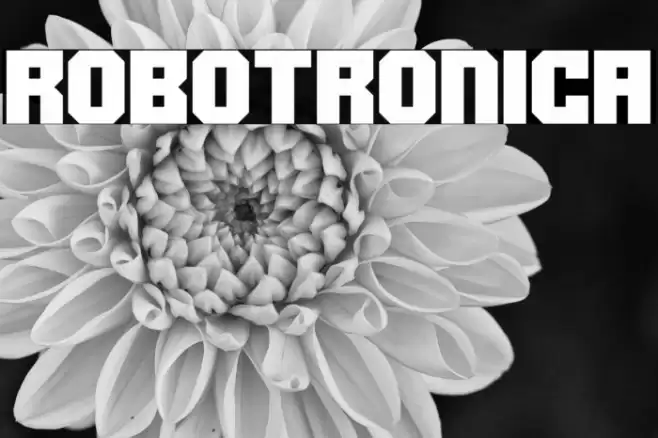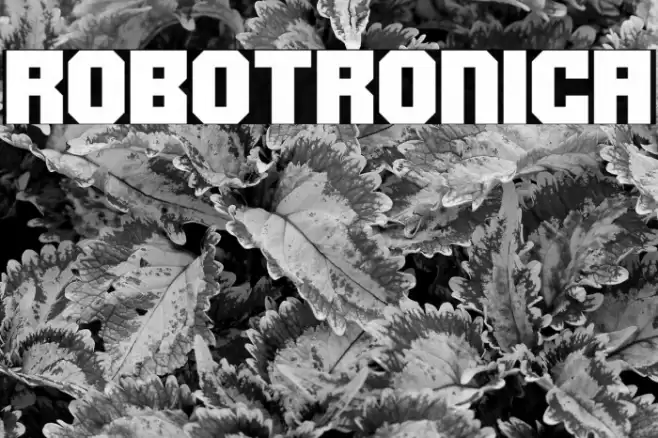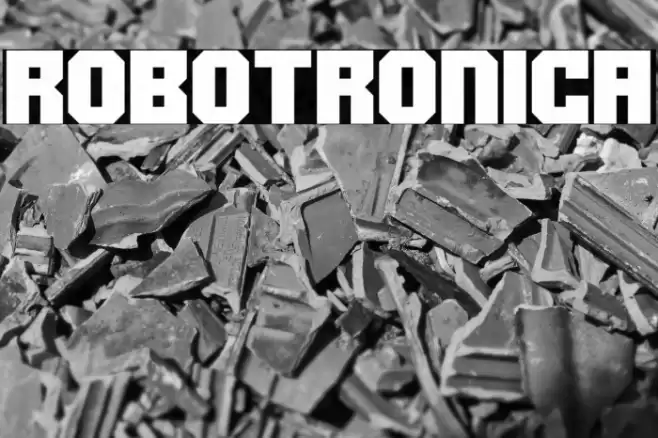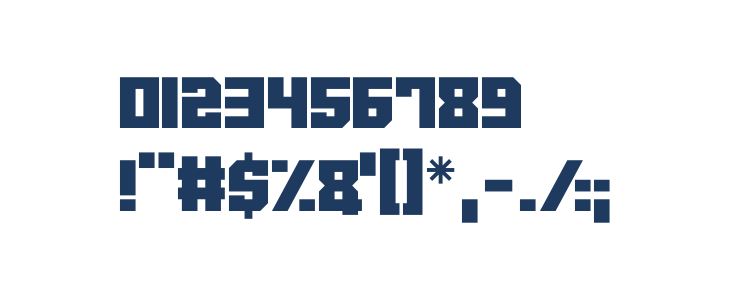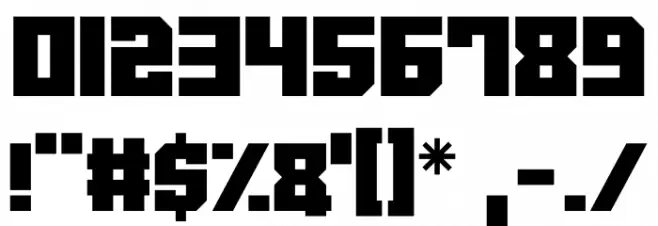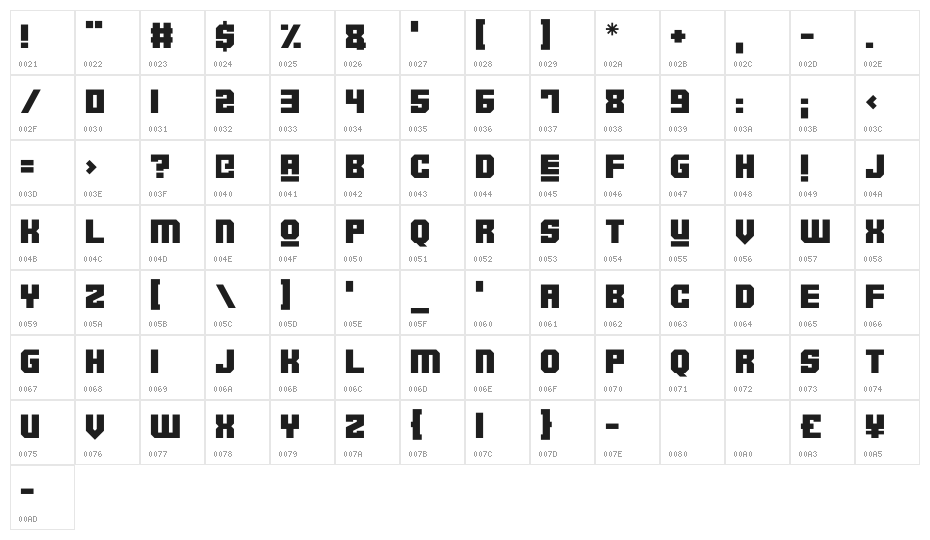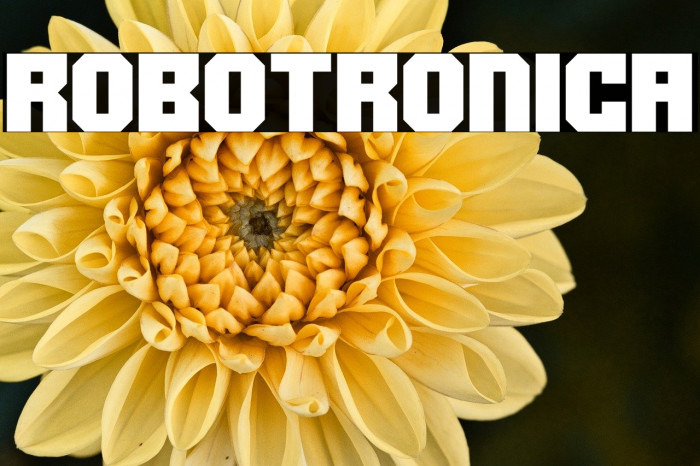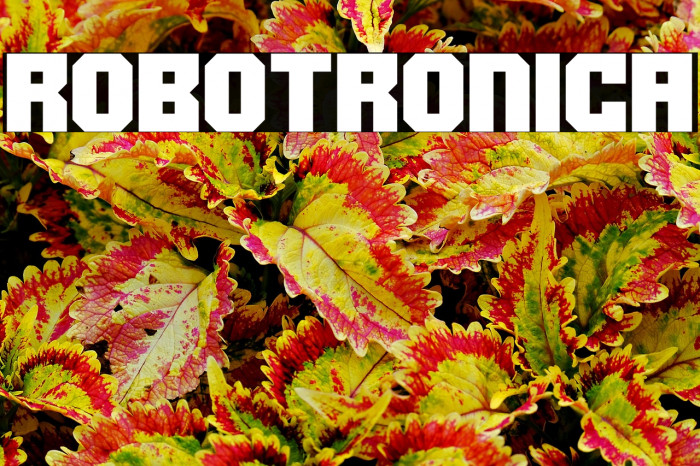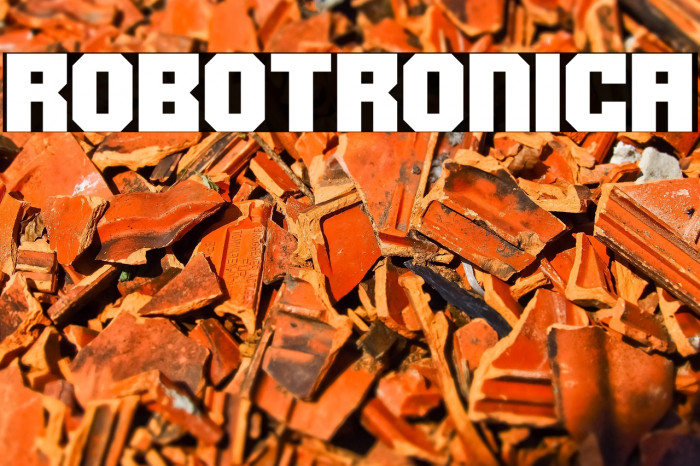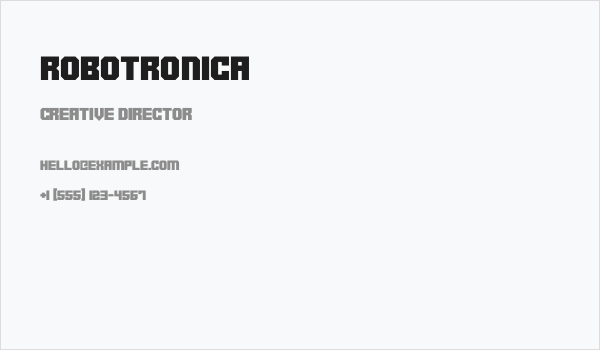
Robotronica Font
Robotronica Description
This font features a bold, geometric design with a futuristic and robotic aesthetic. The characters are constructed with sharp angles and straight lines, creating a sense of precision and modernity. The uppercase letters are particularly striking, with a blocky appearance that emphasizes their strong presence. The numerals and special characters maintain this cohesive style, ensuring consistency across all elements. The overall look is reminiscent of digital or technological themes, making it ideal for projects that require a contemporary and edgy feel.
A bold, geometric font with a futuristic, robotic style from Regular fonts.
- Font: Robotronica
- Proposed Projects: Ideal for technology branding, video game titles, sci-fi movie posters, and digital interfaces.